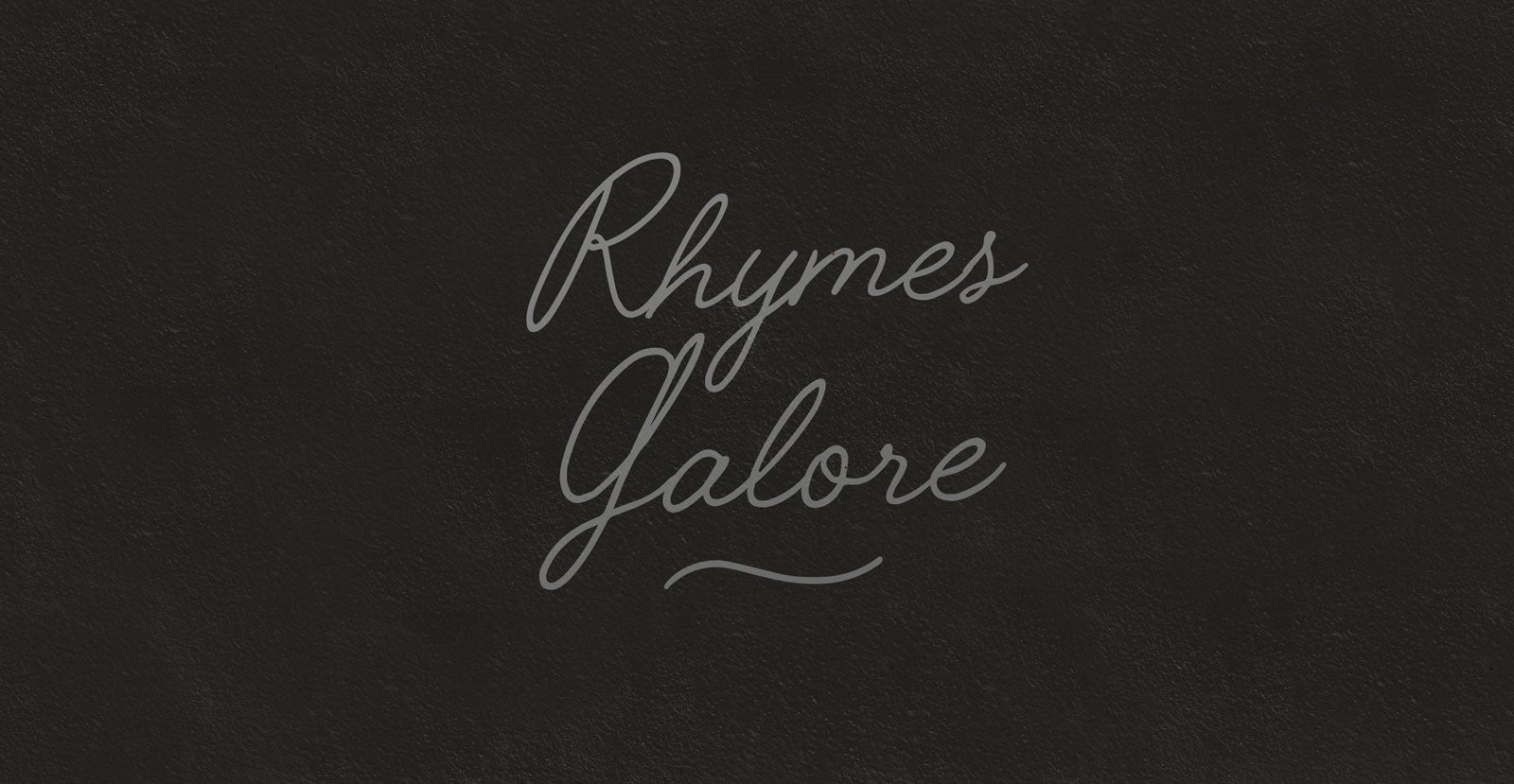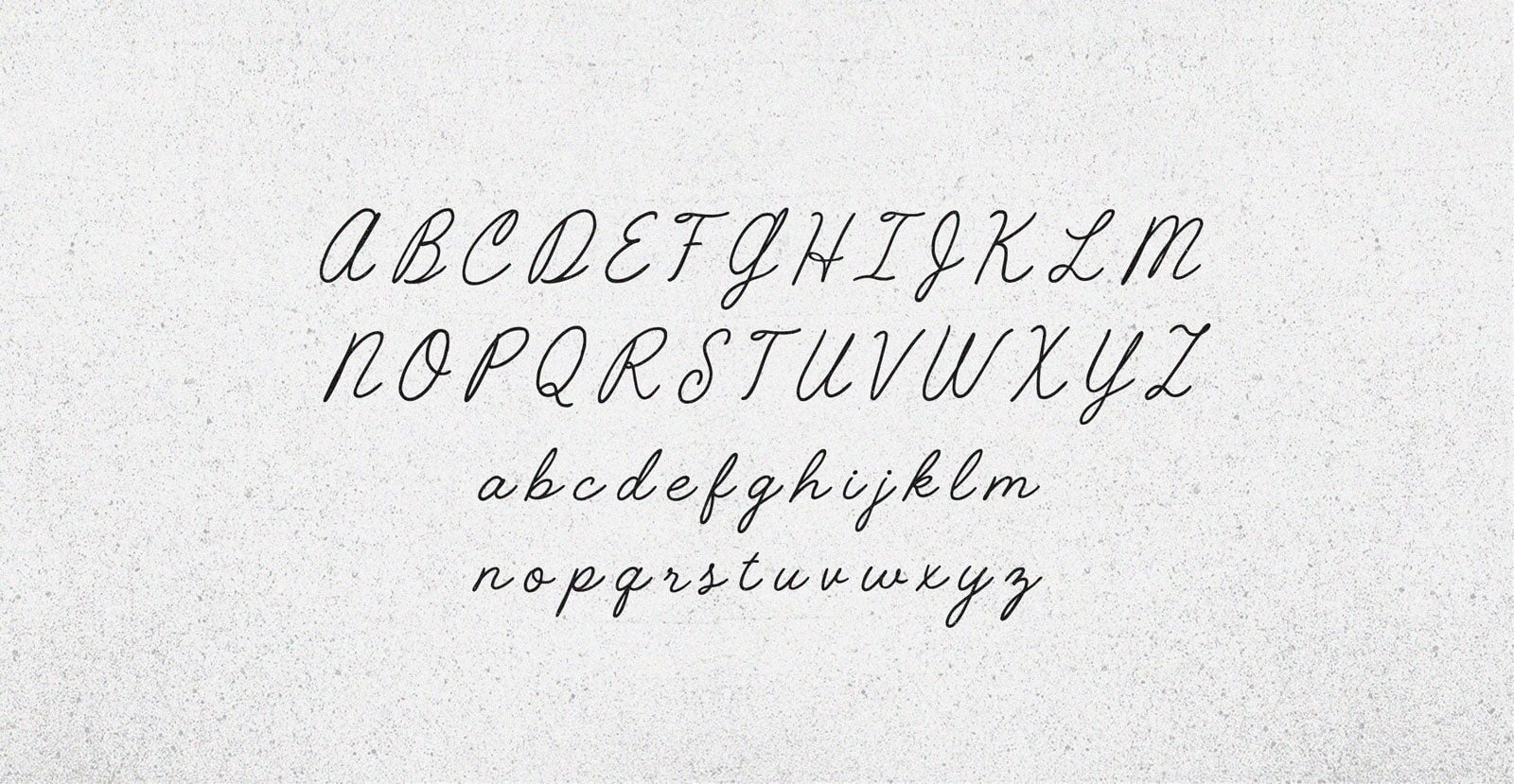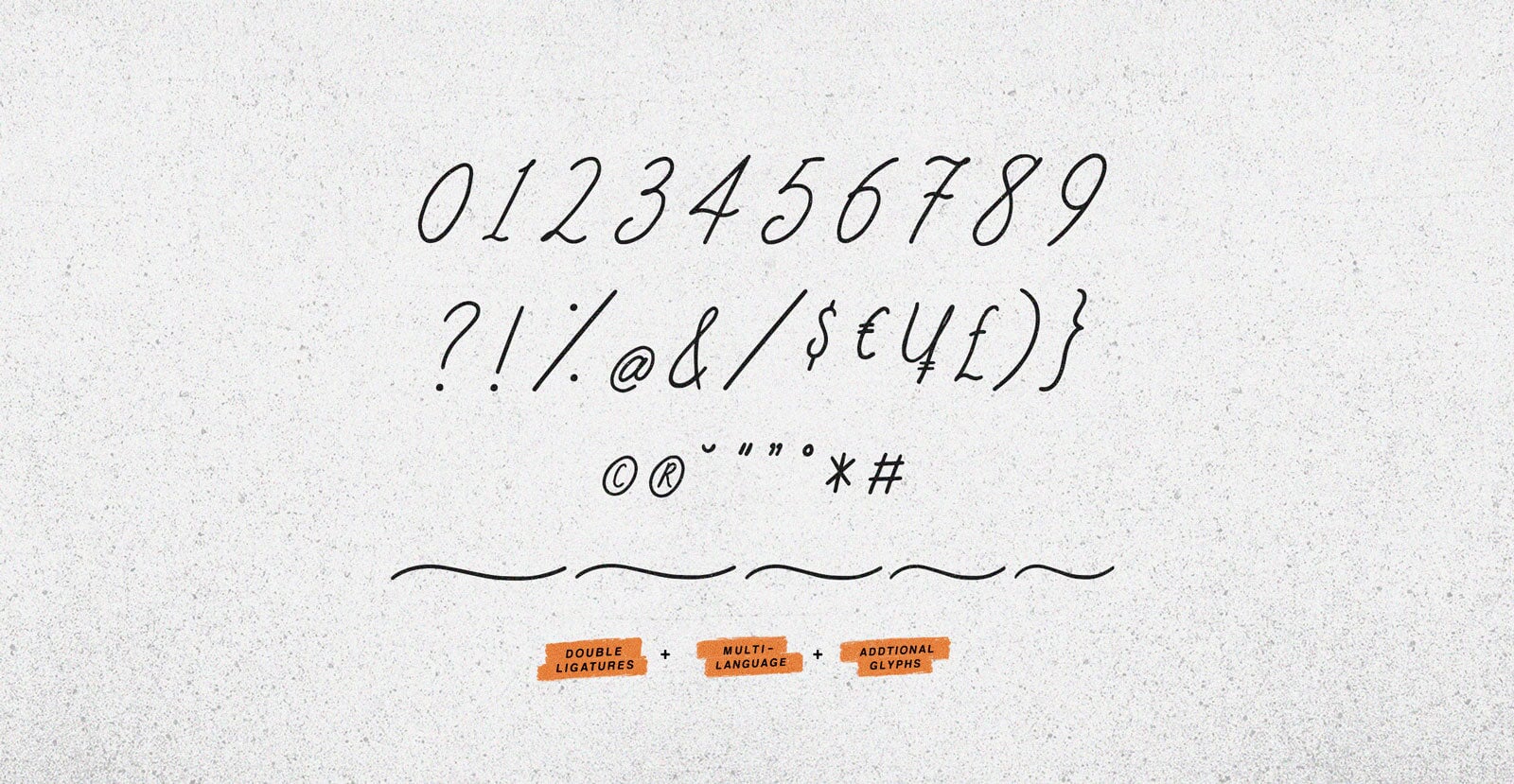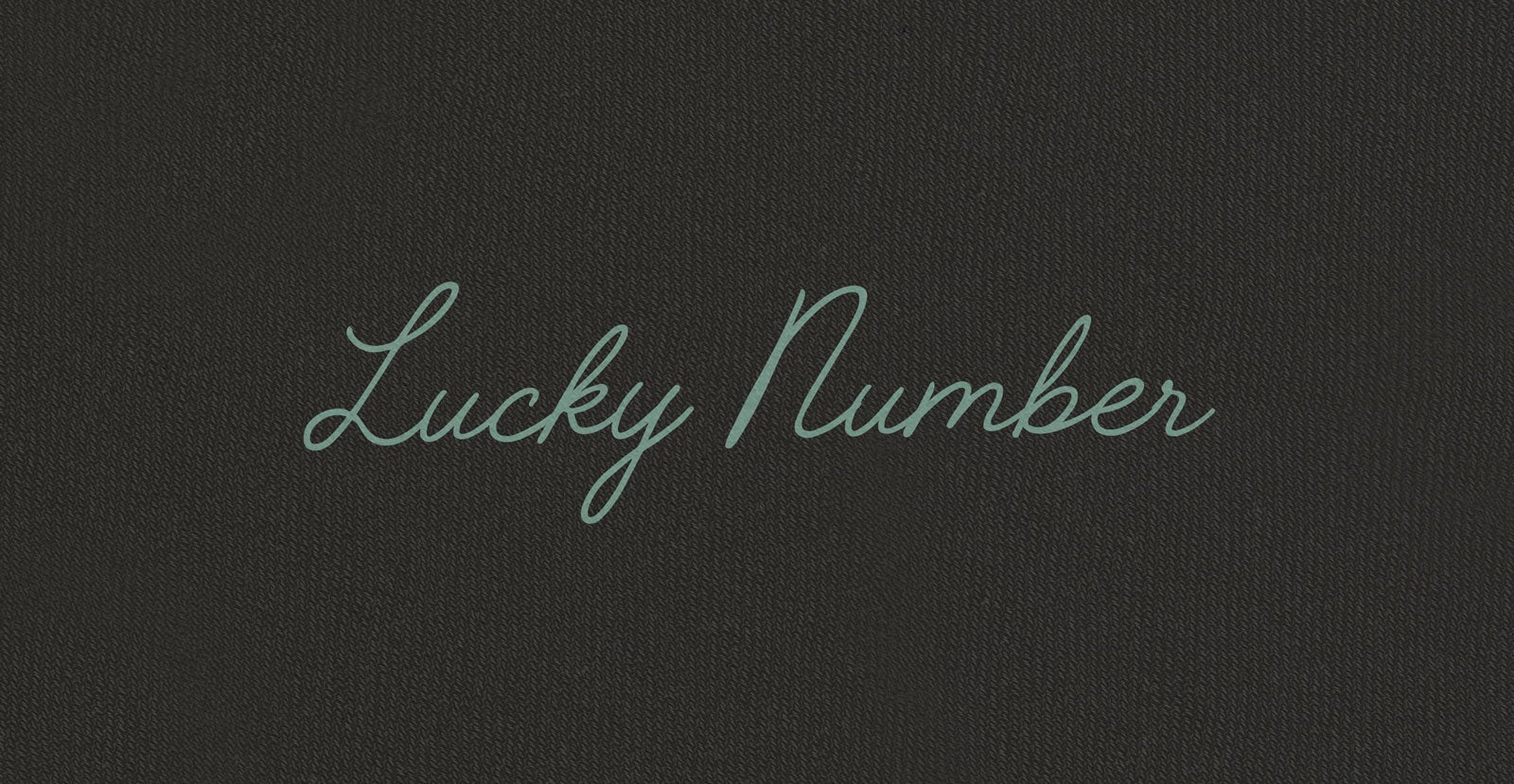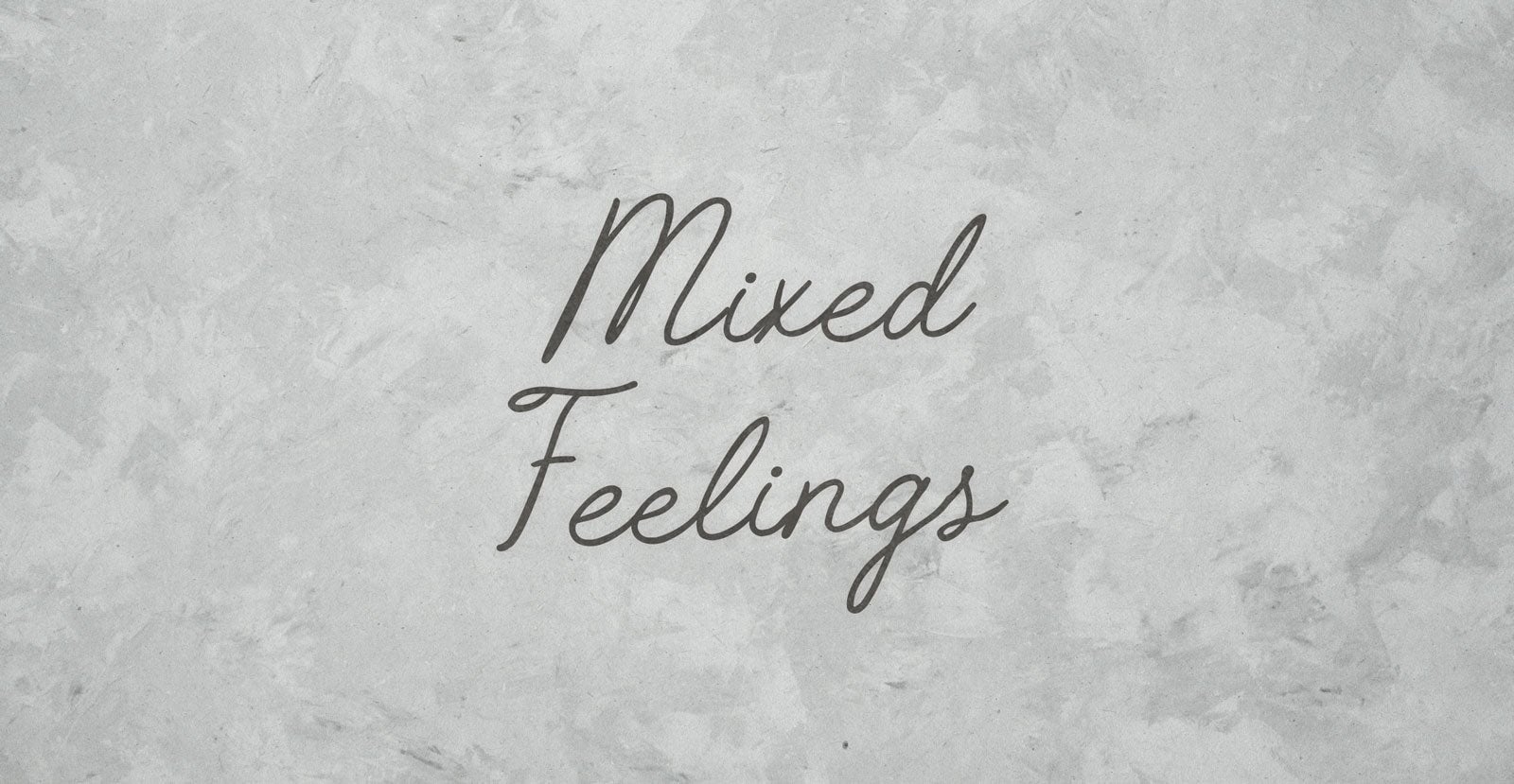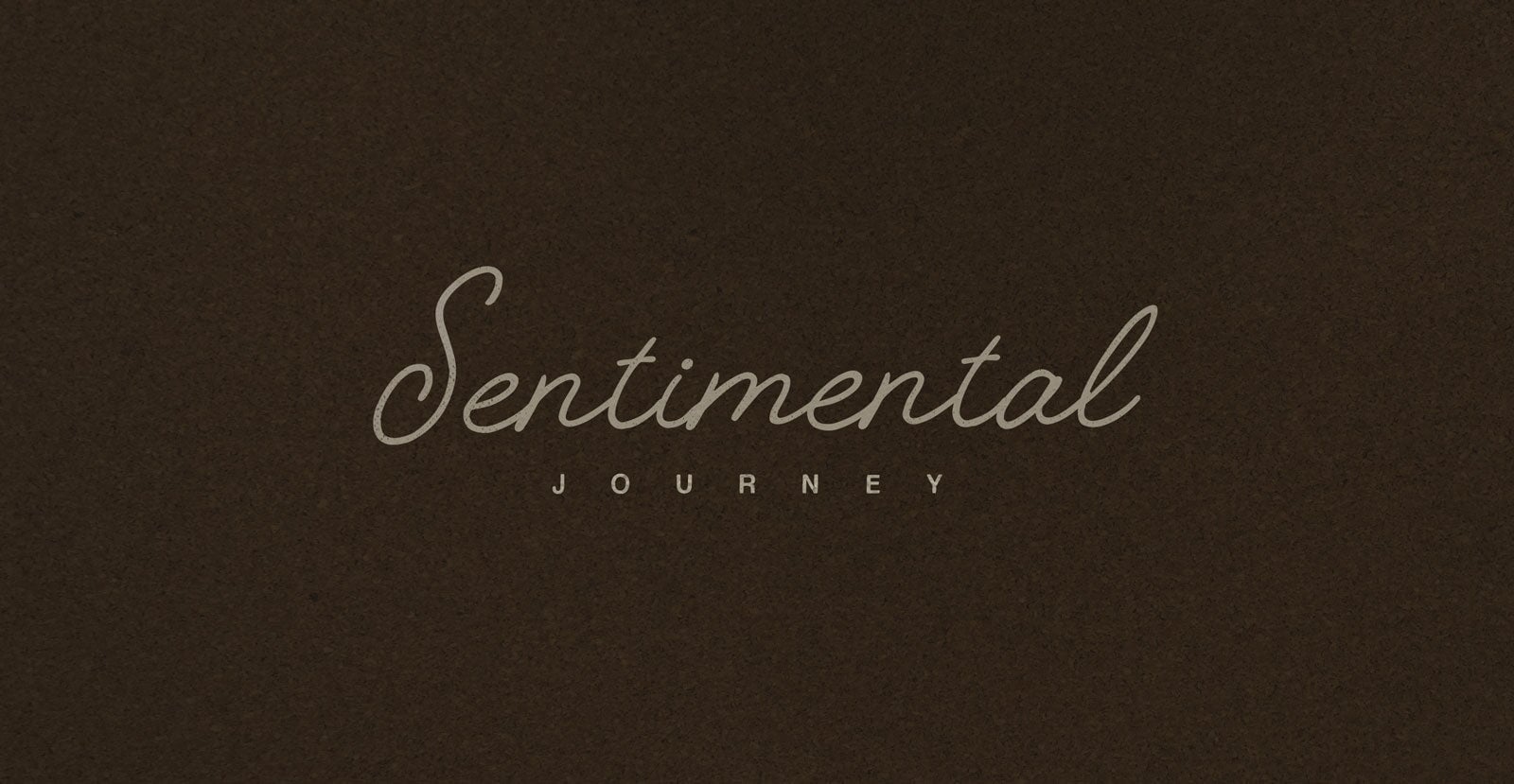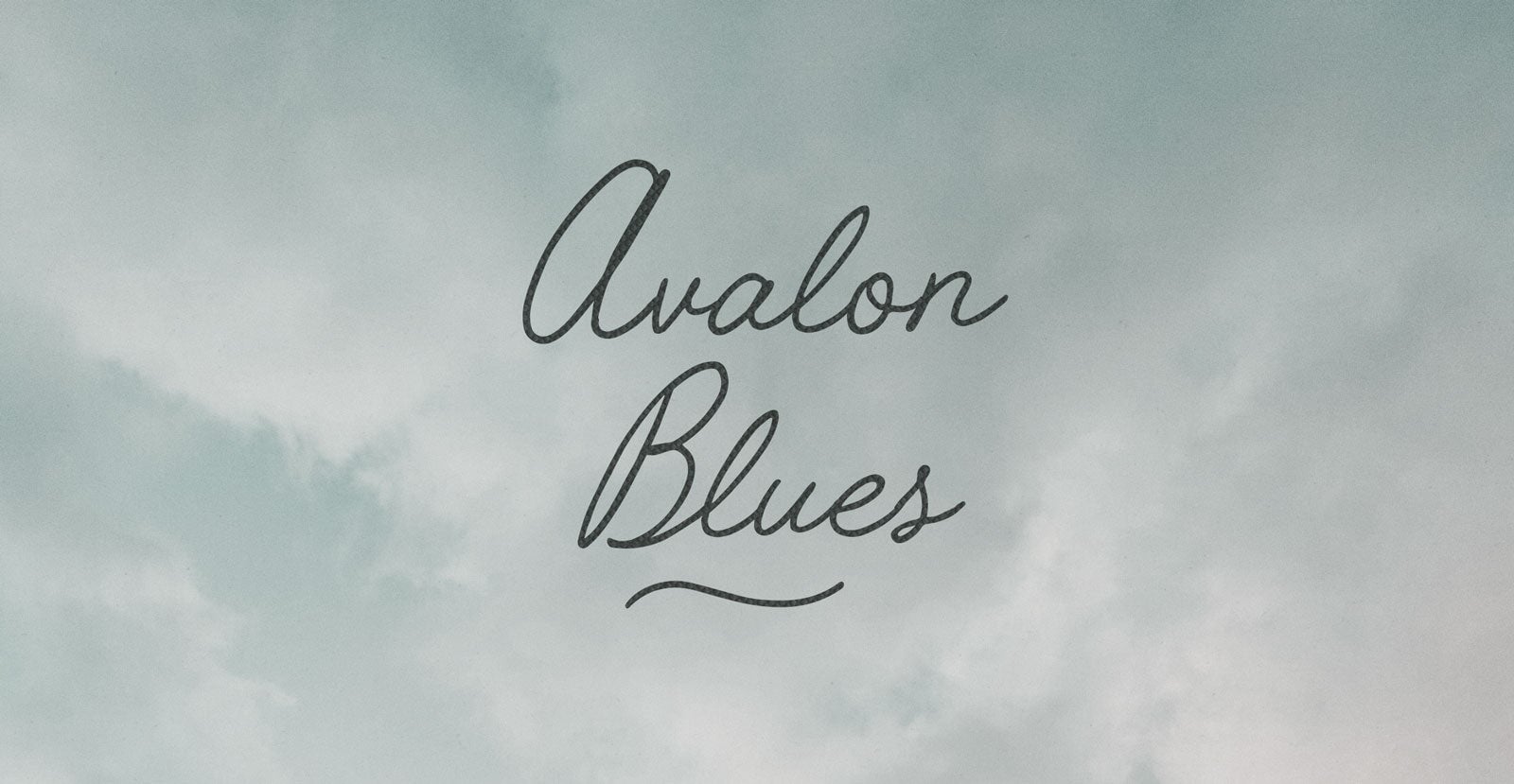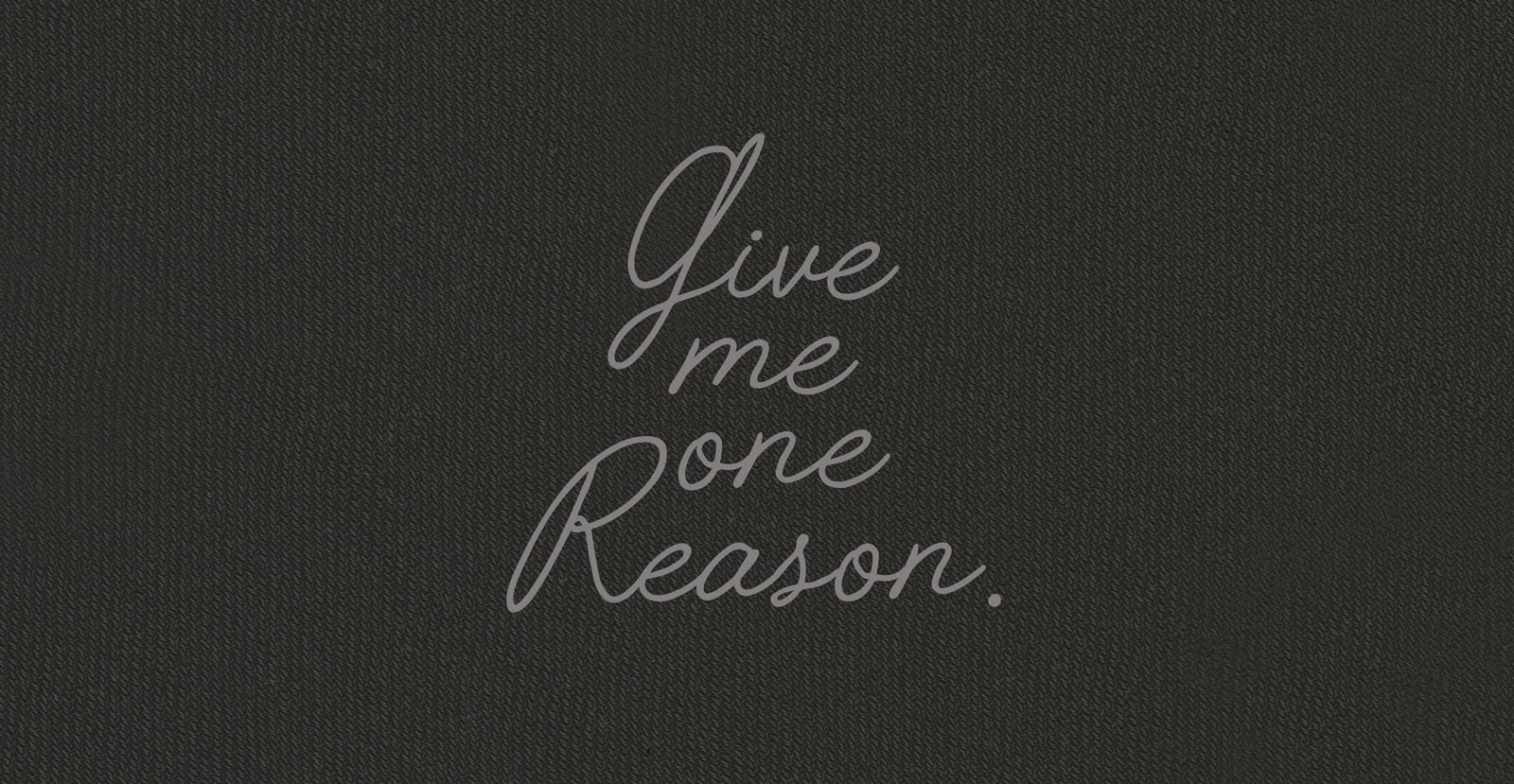
Rhymes Galore
Handwritten Pen Script Font
Where words dance, stories flow, and every line lands with rhythm. From quick quips to clever verses, it’s more than rhyme, it’s pure play for the ear. Dive in, listen close, and let the lines keep you hooked.